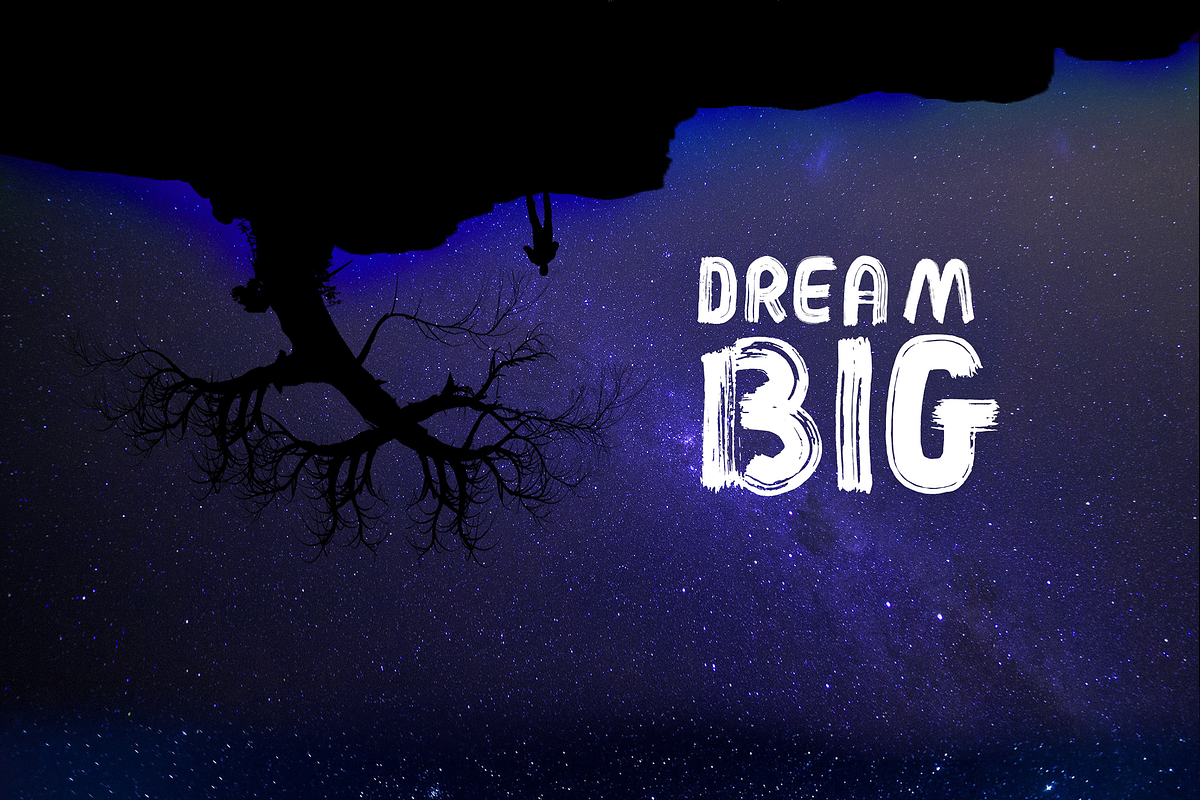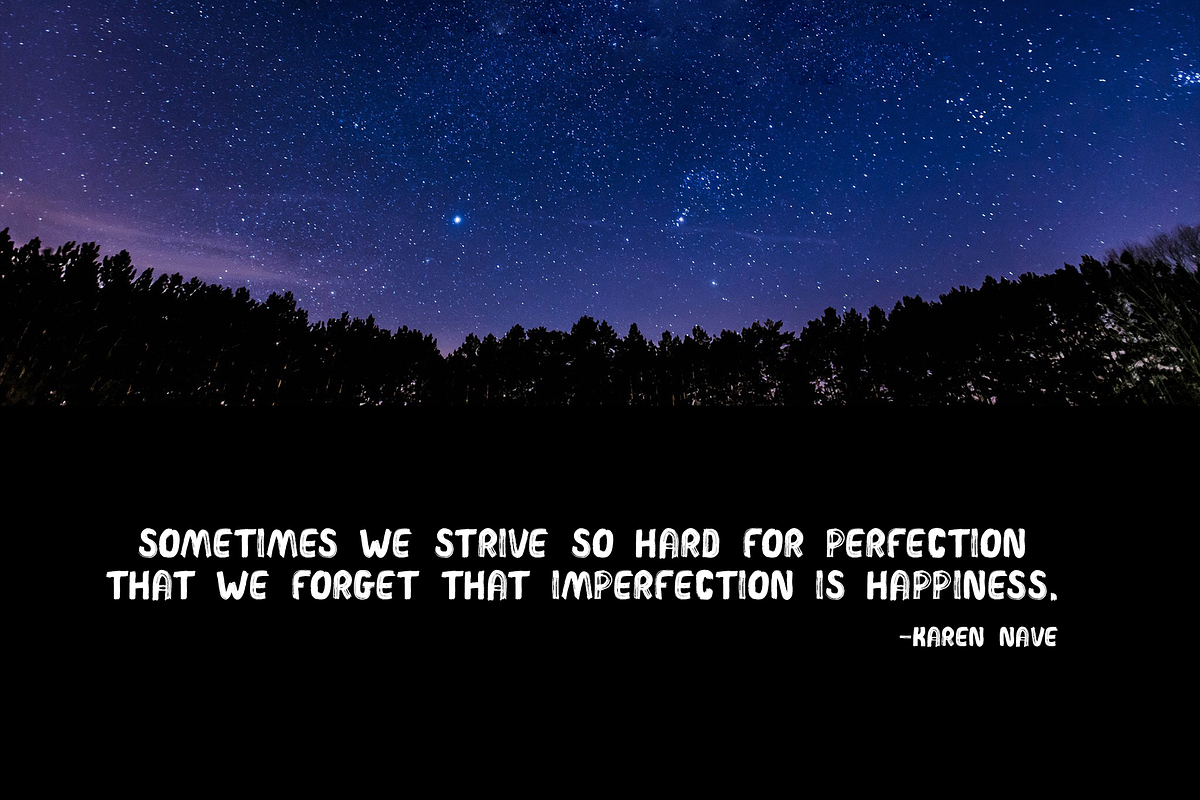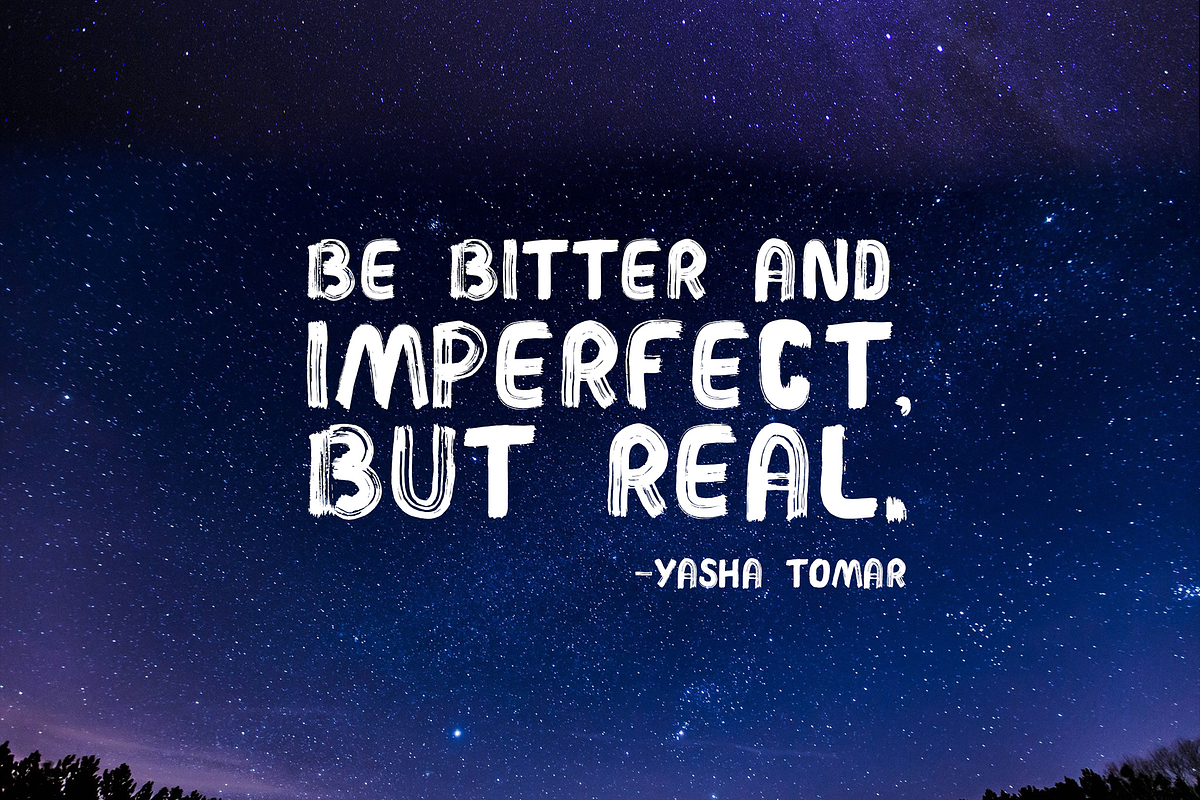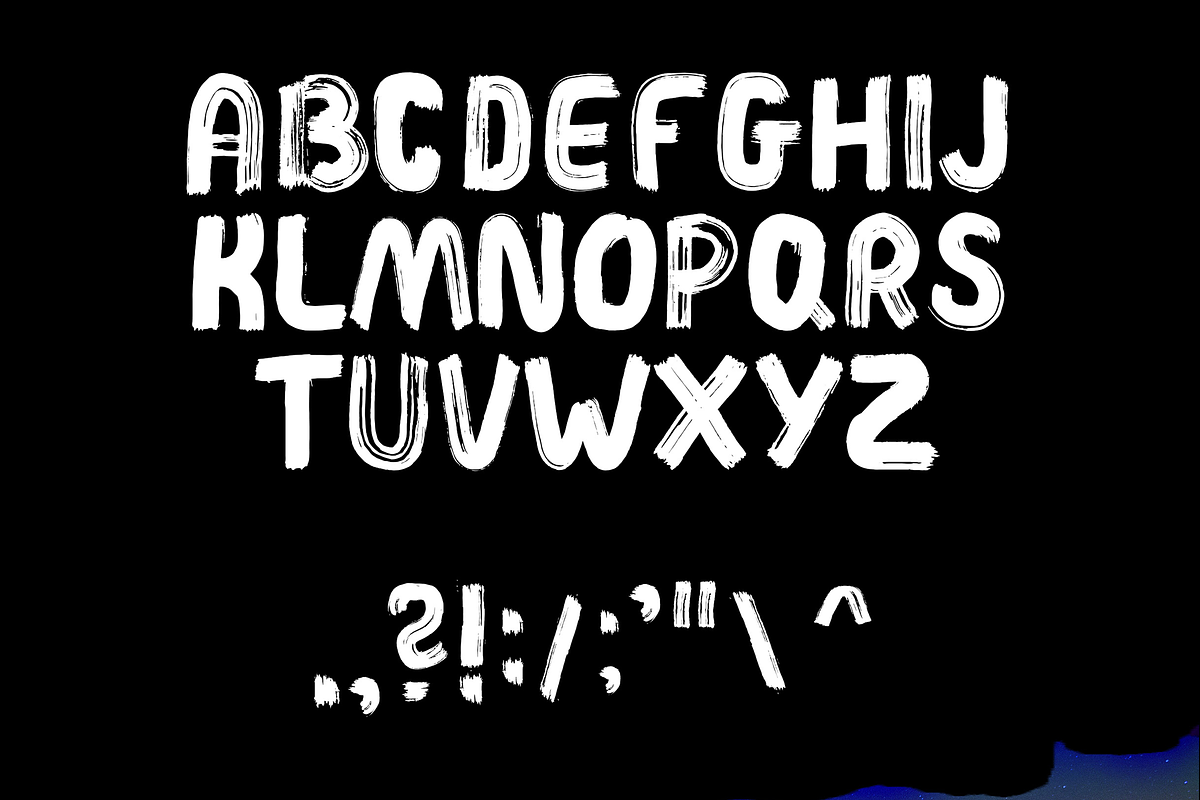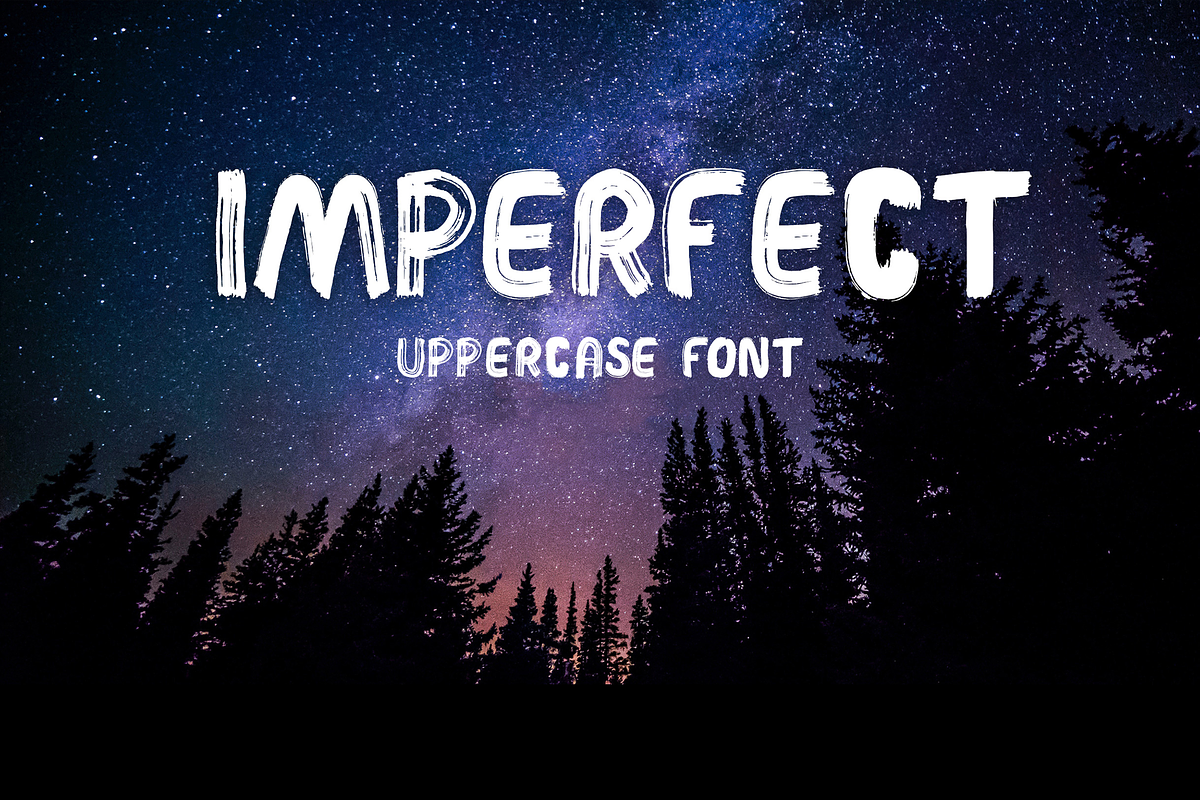
Imperfect Uppercase Font
Imperfect is a hand written brush uppercase font designed by Karina Kelle. Bold characters created with a wide brush will look great in all sizes – as a single letter, sentence or text. Perfect for branding, poster design, bold statements, quotes and prints that stand out.
Imperfect Uppercase Font by Wild Ones fits naturally into Branding, posters, packaging, typography.